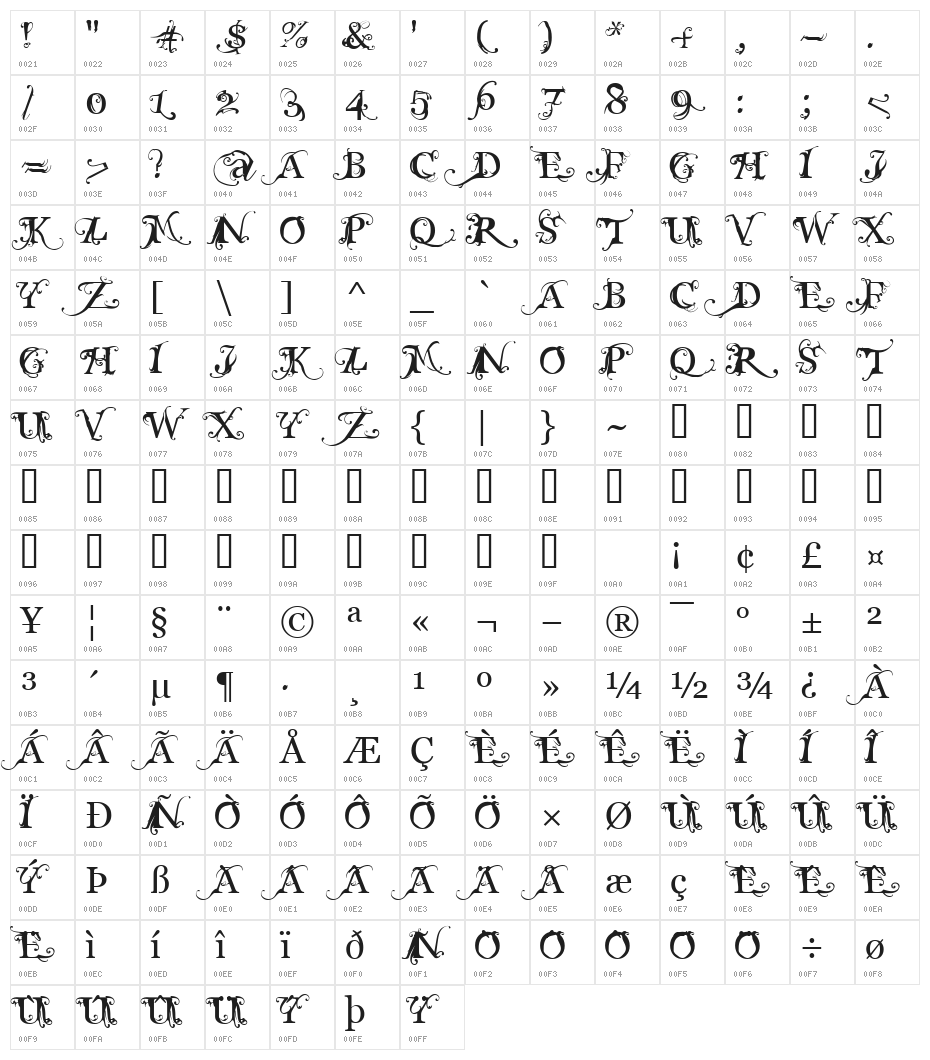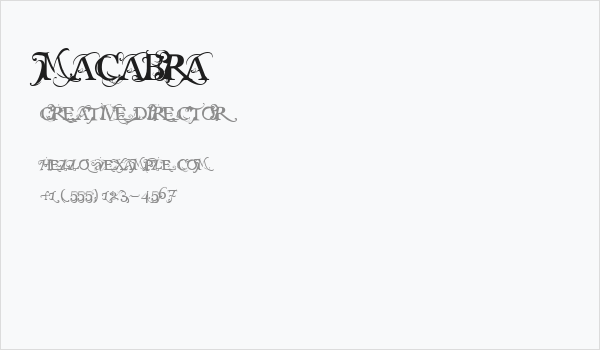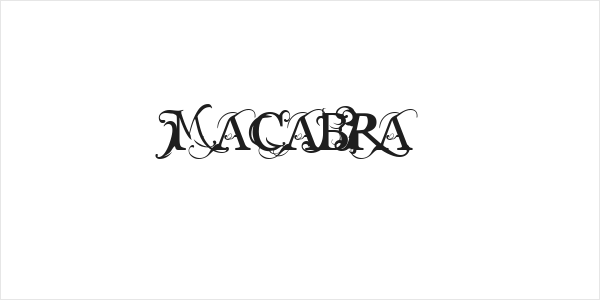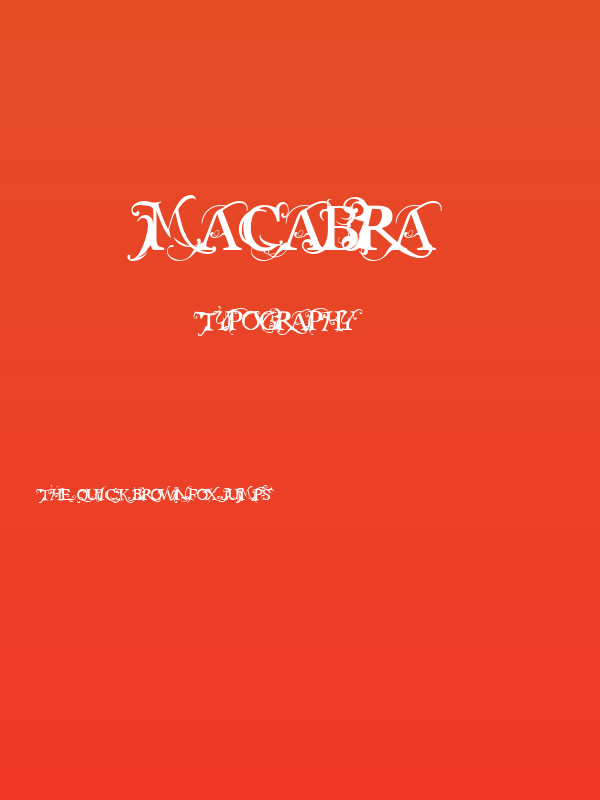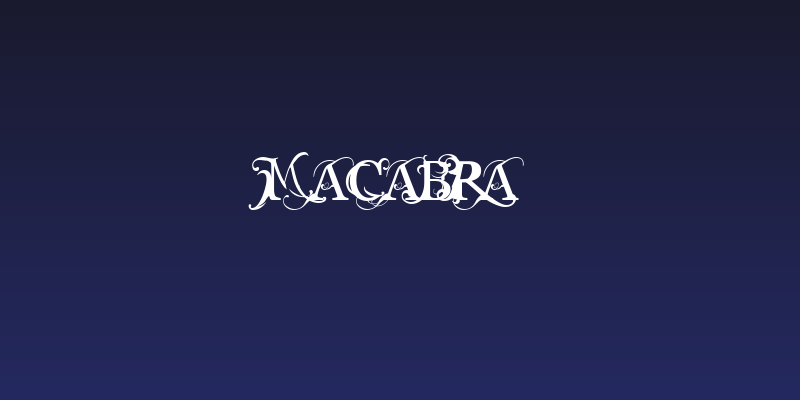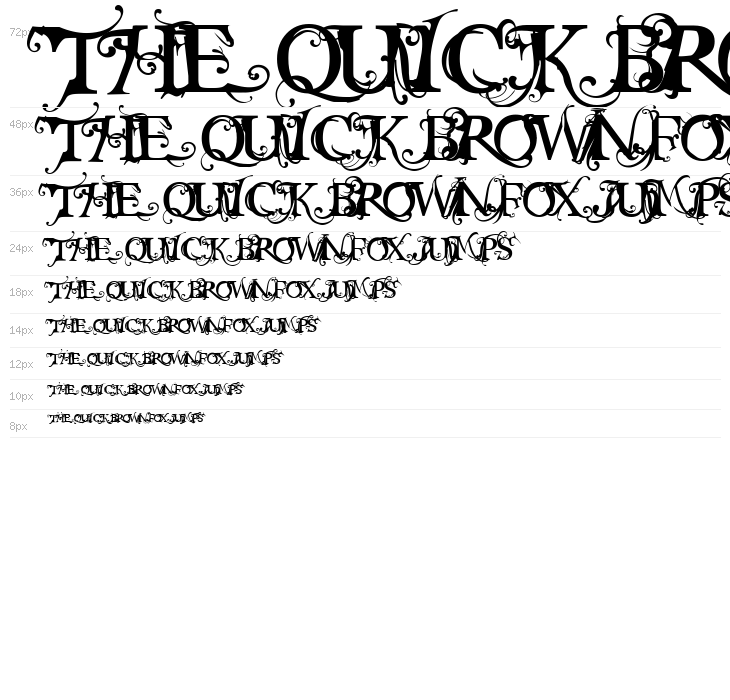
MACABRA Font
MACABRA Description
This font is a highly decorative and ornate typeface that features elaborate swirls and flourishes extending from each character. The uppercase letters are particularly embellished, with intricate designs that give a sense of elegance and complexity. The lowercase letters maintain this ornate style, though they are slightly less elaborate to ensure readability. The numbers and special characters are similarly adorned, making them consistent with the overall aesthetic. This font is designed to capture attention and convey a sense of sophistication and artistic flair. The intricate details make it suitable for projects that require a dramatic and eye-catching typeface.
| Proposed Projects | Ideal for wedding invitations, gothic-themed designs, book covers, and artistic posters. |